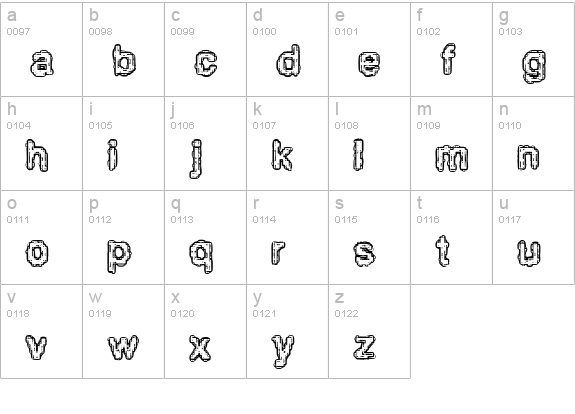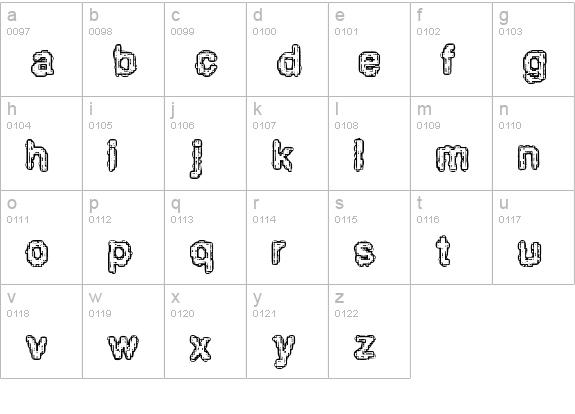
Pixel Krud (BRK) is a unique and eye-catching font that is perfect for all your digital design needs. This font features a bold and edgy style that adds a touch of personality to any project. Whether you're creating a website, designing a logo, or crafting social media graphics, Pixel Krud (BRK) is sure to make a statement. With its pixelated appearance, this font captures the essence of retro and nostalgic design. It brings back the charm of classic video game fonts, adding a touch of nostalgia to modern projects. The carefully crafted pixels give each letter a distinct and vibrant look, making it stand out in any context. What makes Pixel Krud (BRK) even more appealing is that it is absolutely free! Yes, you read that right. This font is freely available to download at FontsMarket.com. You can easily access and utilize this font for personal and commercial projects without any restrictions. It's a fantastic opportunity to enhance your designs without breaking the bank. Pixel Krud (BRK) is incredibly versatile, allowing you to experiment and explore various design possibilities. Its bold and playful nature makes it perfect for headlines, titles, and display text. It adds a touch of fun and excitement, making your projects visually engaging and captivating. This font is designed with precision and attention to detail, ensuring that each letter maintains its clarity and readability. The clean edges and well-defined pixels make it easy to read, even at smaller sizes. This means that Pixel Krud (BRK) can be used for both digital and print purposes, making it a valuable asset for graphic designers, web developers, and typographic enthusiasts. So why wait? Download Pixel Krud (BRK) font today from FontsMarket.com and let your creativity run wild. With its unique style and free availability, this font is a must-have in your design toolkit. Embrace the pixelated beauty and add a touch of retro charm to your projects.